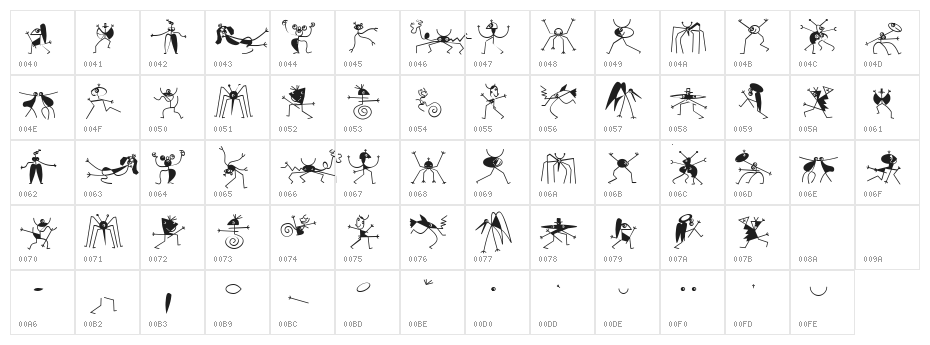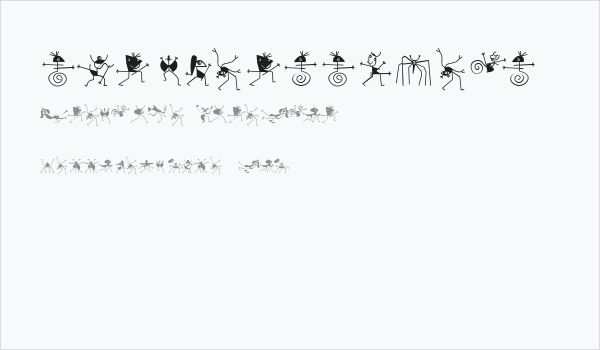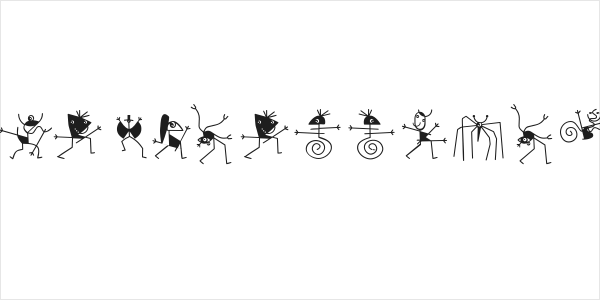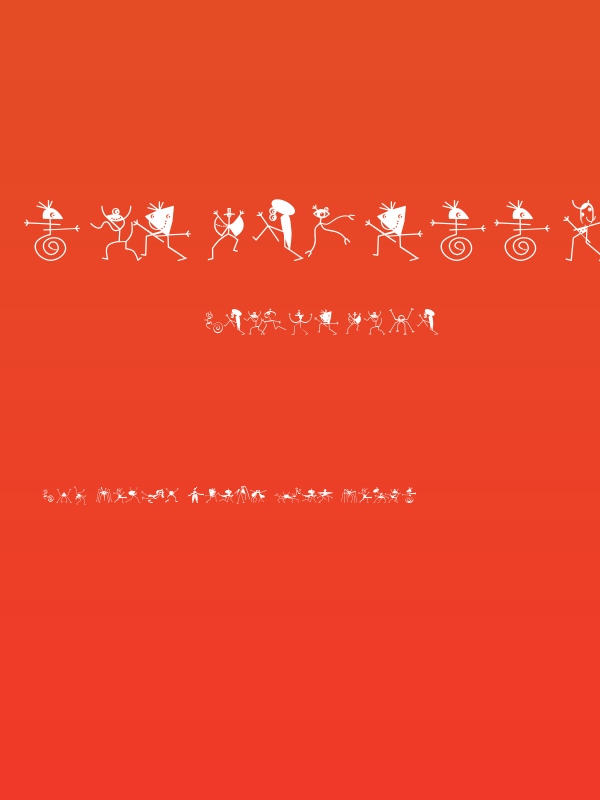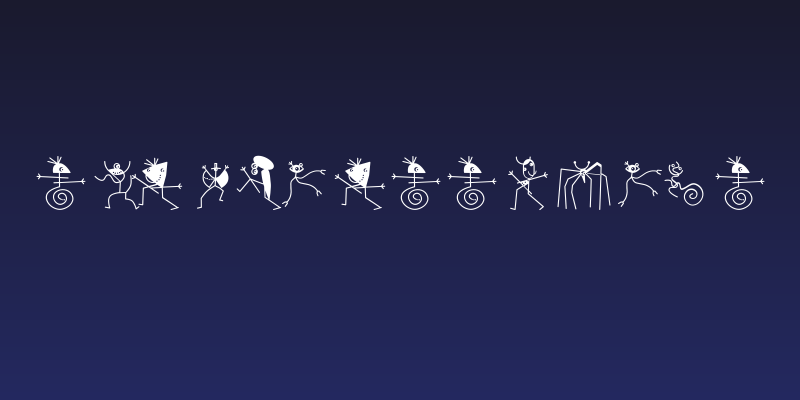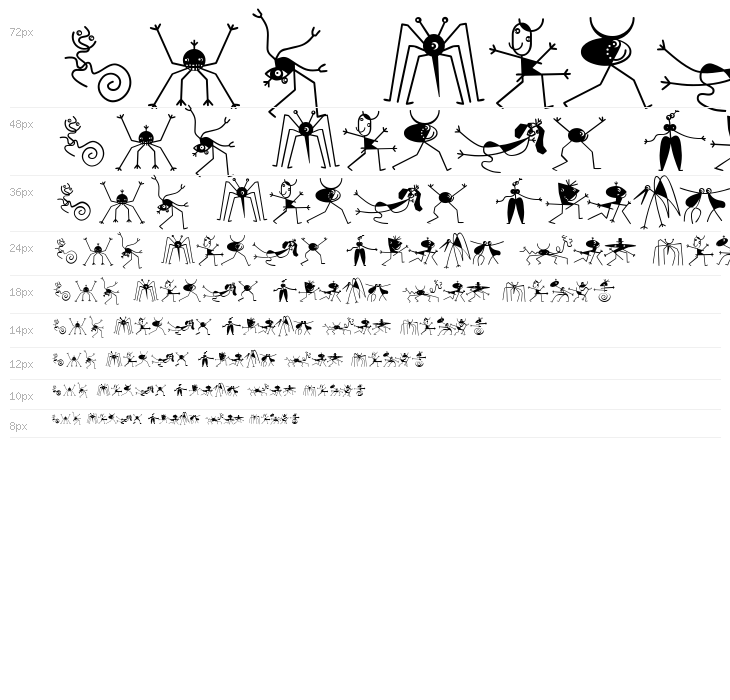
SprayersSujets Font
SprayersSujets Description
A playful, highly decorative font composed of whimsical stick-figure characters, each letter and symbol represented by a unique illustrated figure with exaggerated poses and expressive features. The design is irregular, with varying stroke thickness and creative, non-uniform shapes, giving a lively and animated appearance.
| Overall Style | Decorative, Playful, Whimsical |
| Use Case | Logos, Posters, Headlines, Invitations |
| Proposed Projects | ChildrenΓ’β¬β’s books, party invitations, posters, creative branding, comic titles, playful packaging. |